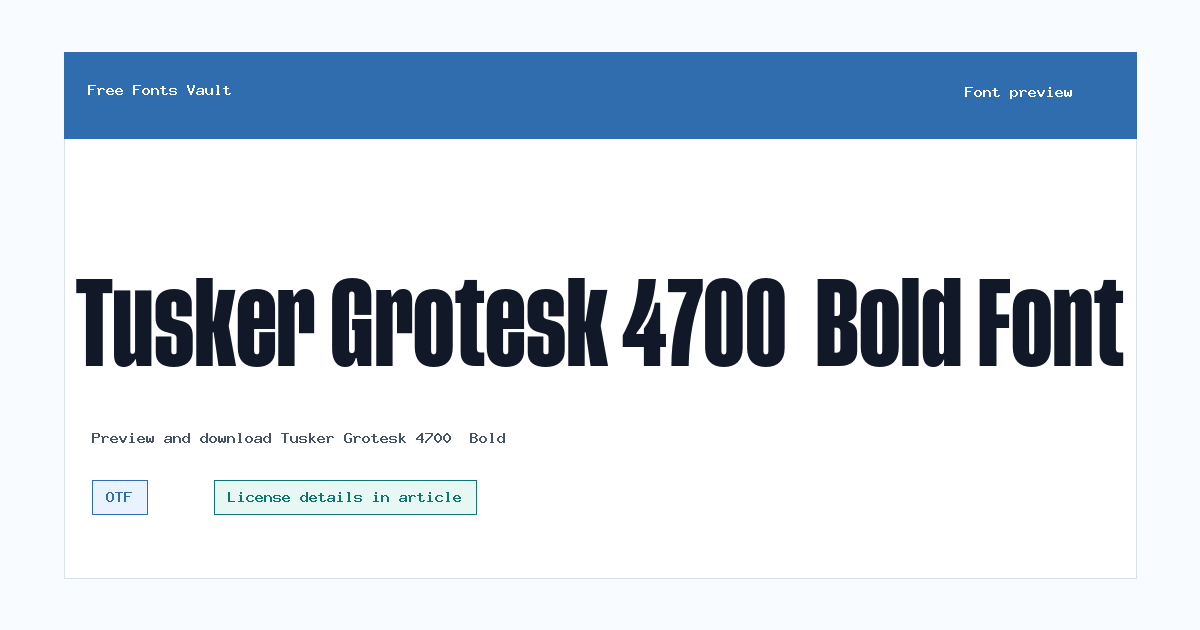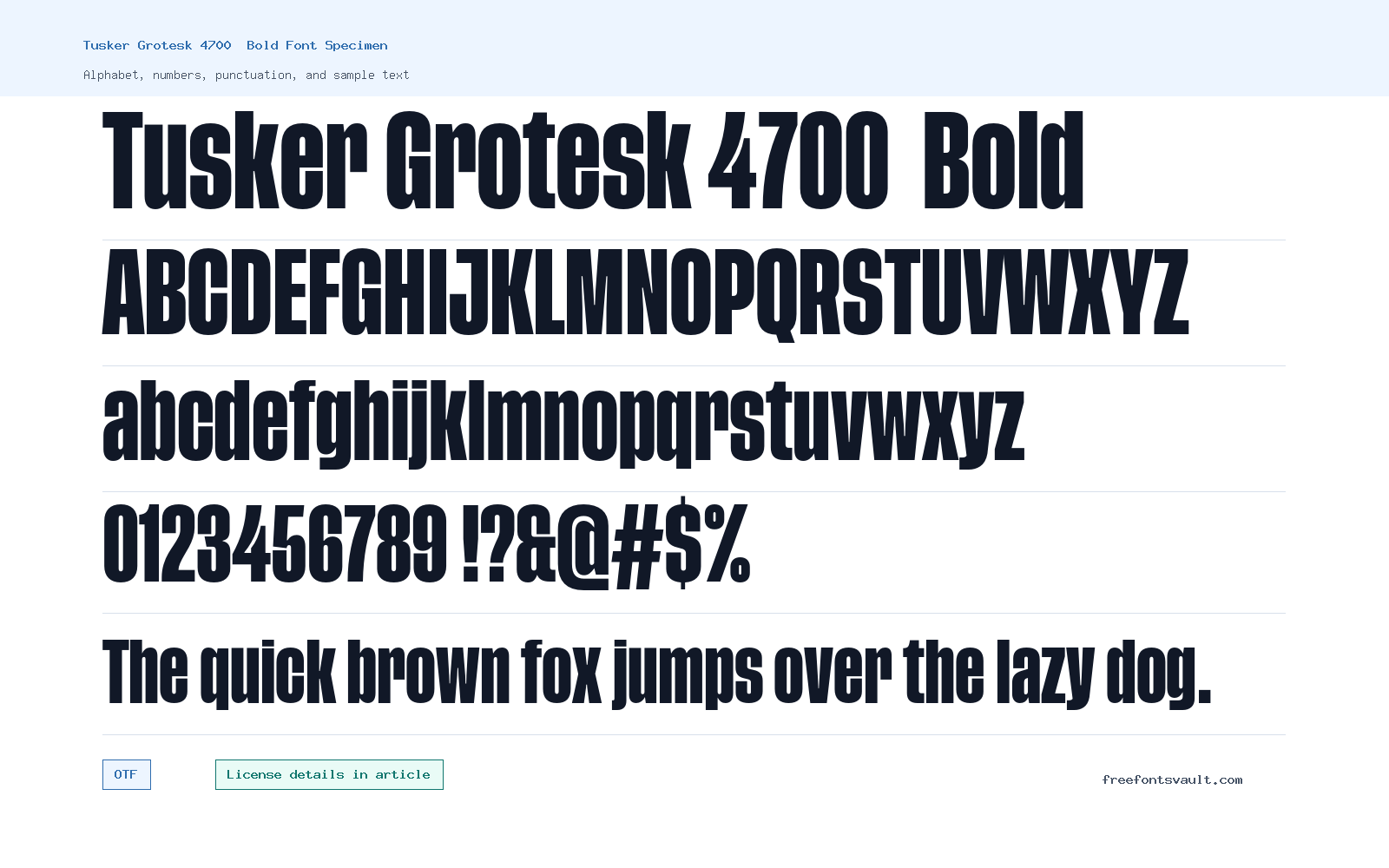
Tusker Grotesk 4700 Bold
- Designer Lewis McGuffie
- Foundry Lewis McGuffie
Tusker Grotesk 4700 Bold font.
Tusker Grotesk 4700 Bold is a tall, condensed display sans made for short text that needs strong impact. Its narrow shapes and heavy weight work best when the words are meant to lead the design, such as posters, sports graphics, editorial headlines, packaging, and social media titles.
About Tusker Grotesk 4700 Bold
Tusker Grotesk 4700 Bold belongs to the Tusker Grotesk family by Lewis McGuffie Type. MyFonts lists the family as a 30-style commercial typeface designed by Lewis McGuffie, with 4700 Bold included among the individual styles. The style sits in the bold range of the family, giving it a dense headline look without the extra weight of the Super cuts.
Use this font when you want compact uppercase-heavy typography, punchy titles, or a stacked poster layout. It is not a good choice for body copy, long paragraphs, small interface labels, or text that needs relaxed reading. In the preview, test real words rather than only sample letters, because condensed bold fonts can feel tighter with long names, numbers, or mixed-case phrases.
- Tall condensed grotesque letterforms with a bold display weight
- Part of the larger Tusker Grotesk family listed with 30 styles
- Strong fit for short headlines, title blocks, and poster-style layouts
- Posters and event graphics
- Sports and editorial headlines
- Packaging titles and label typography
- Banners, hero text, and social media graphics
- Bold logo drafts or title treatments, with proper licensing
Tusker Grotesk is credited to designer Lewis McGuffie and published by Lewis McGuffie Type.
Keep text short, increase tracking if the words feel too tight, and check the preview at the actual size you plan to use. Pair it with a calmer sans serif or serif for supporting copy so the bold condensed headline does not have to carry long reading sections. For best results, set Tusker Grotesk 4700 Bold in tight, oversized words and give the line enough vertical space. It works especially well when paired with a quiet text face for descriptions, prices, dates, or captions.
Who designed Tusker Grotesk 4700 Bold?
Tusker Grotesk is credited to Lewis McGuffie and published by Lewis McGuffie Type.
What kind of font is Tusker Grotesk 4700 Bold?
It is a bold condensed display sans serif made for headline and title use rather than long reading text.
What is this font best used for?
It works well for posters, sports graphics, editorial headlines, packaging, banners, and social media title designs.